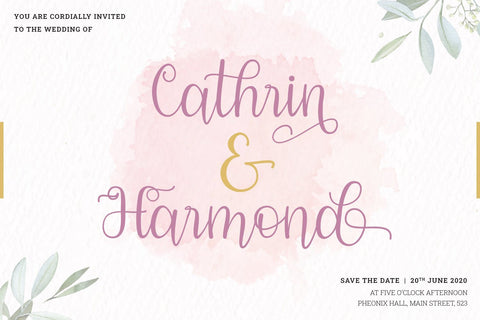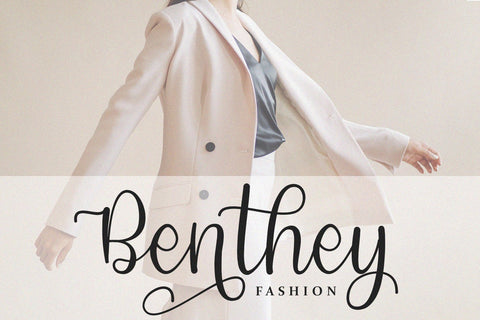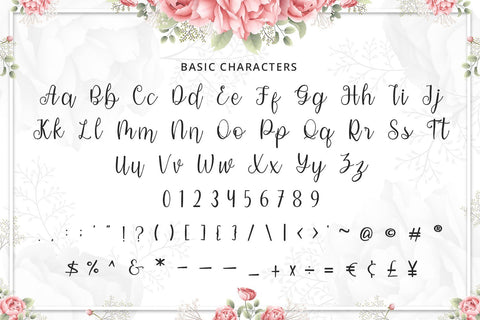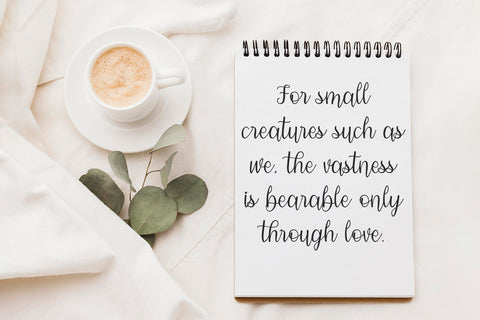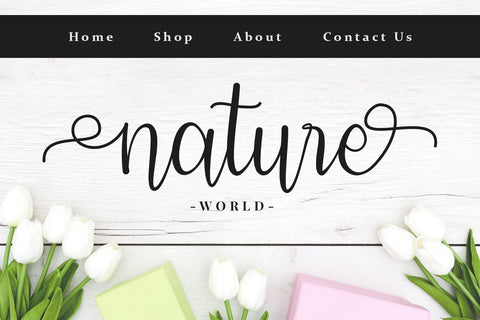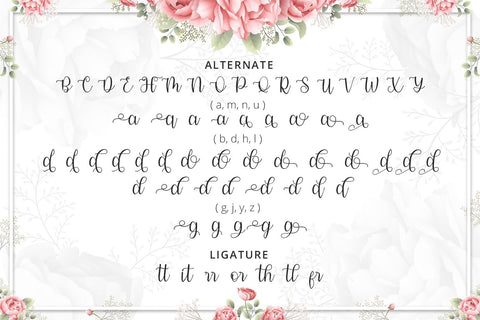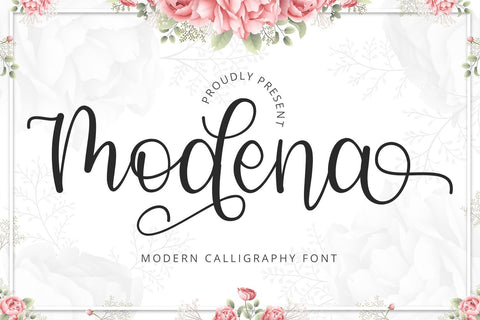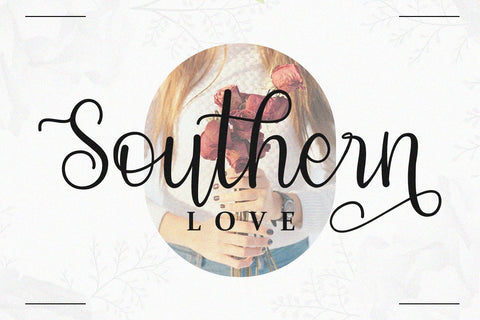
Modena - Modern Calligraphy Font
Modena is a lovely modern calligraphy font with authentic and casual feels. It will be perfectly used for Branding, Logo Design, Lettering, Logotype, Clothing, Poster, magazine, packaging, posters, shopping bags, t-shirts, book covers, photography, special events and other design project.